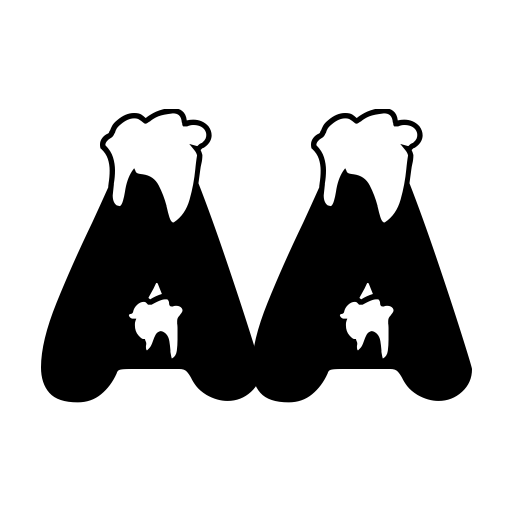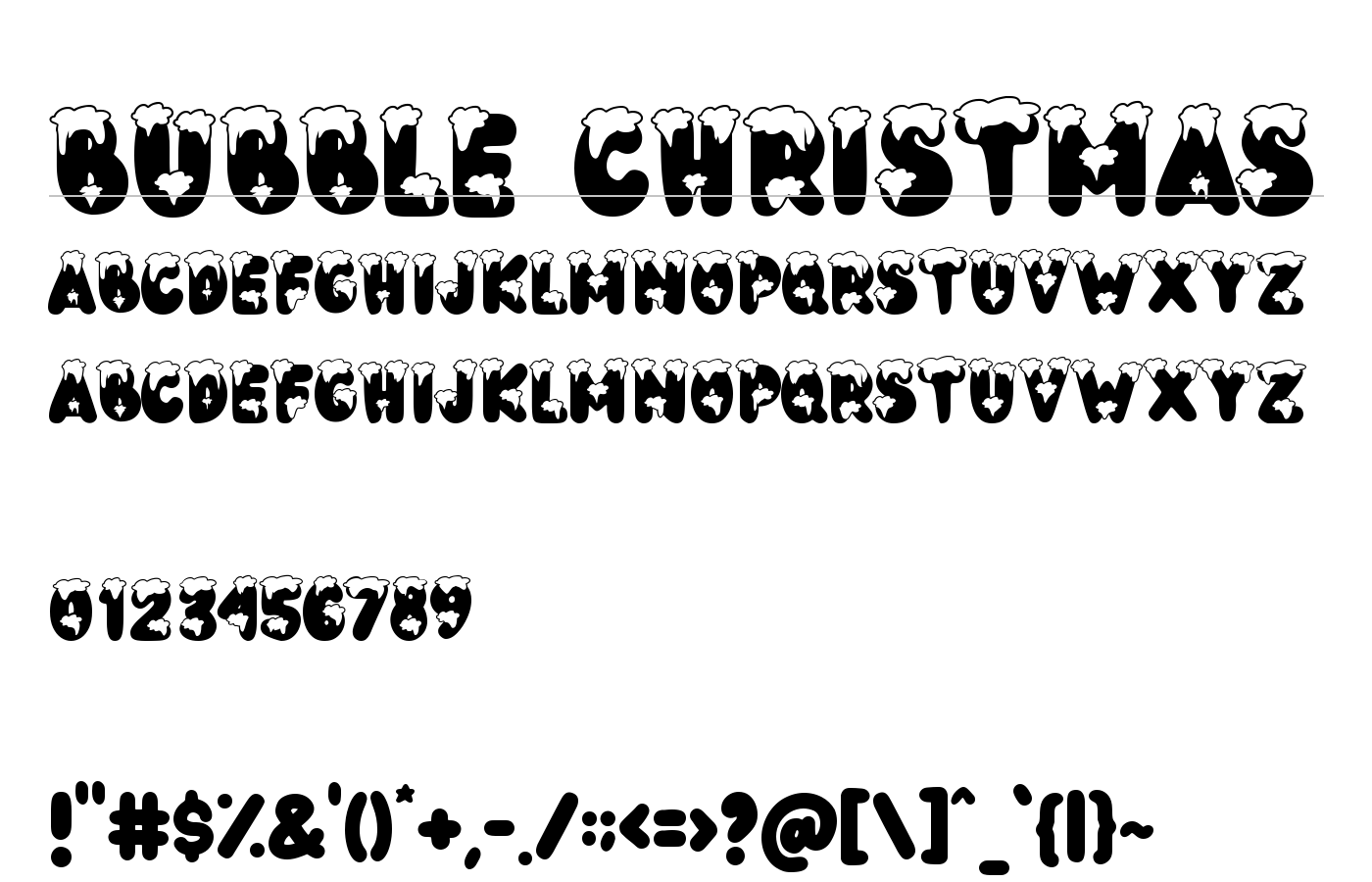
Bubble Christmas Font is a playful, bold display typeface with thick, rounded letters topped with whimsical snow-like decorations. Its chunky, fun style makes it perfect for festive branding, holiday cards, and seasonal posters where a cheerful and lighthearted mood is desired. The font’s unique decorative elements add a cozy winter charm that captures the spirit of Christmas celebrations.
Bubble Christmas Font
About Bubble Christmas Font
| Font family | Bubble Christmas Font |
| Designer | Dimas Prasetyo |